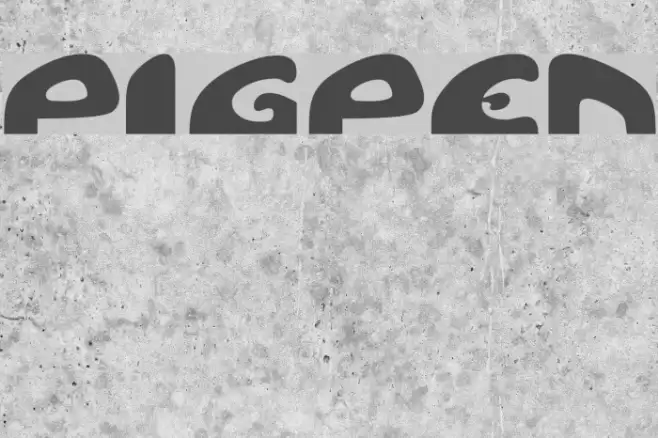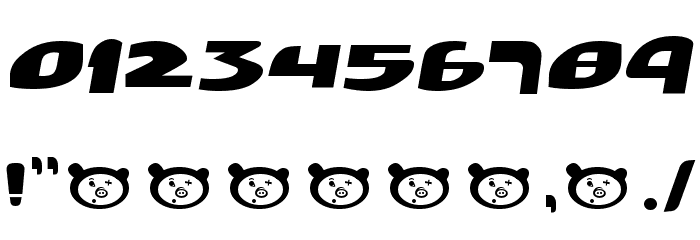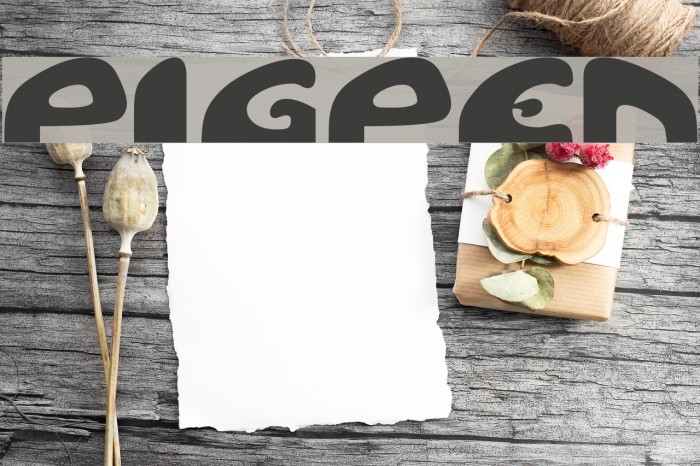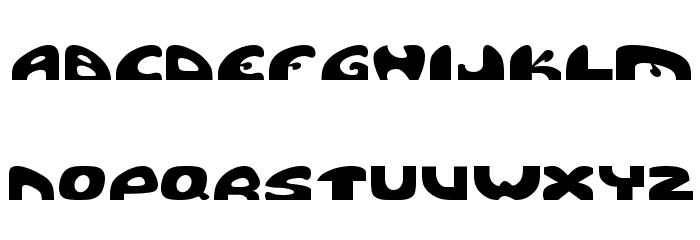
Pigpen Font
Pigpen Description
This playful and whimsical font features bold, rounded characters with a unique, cartoonish style. Each letter is crafted with a sense of fun, incorporating curves and exaggerated shapes that give it a lively appearance. The numbers and special characters maintain this playful theme, making it ideal for projects that require a touch of humor and creativity. The font's distinct style is reminiscent of animated or children's themes, with a focus on boldness and visual impact. Its design is both eye-catching and memorable, making it suitable for a variety of creative applications.
A playful, bold font with rounded, cartoonish characters from Uncategorized fonts.
- Proposed Projects: Ideal for children's books, animated titles, playful branding, and creative posters.
- Overall Style: Playful, Cartoonish